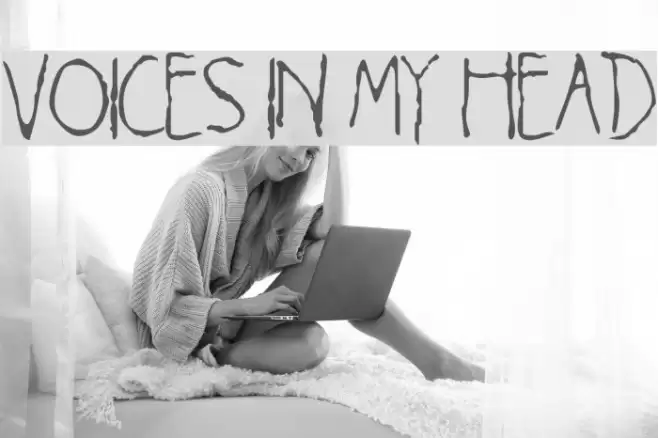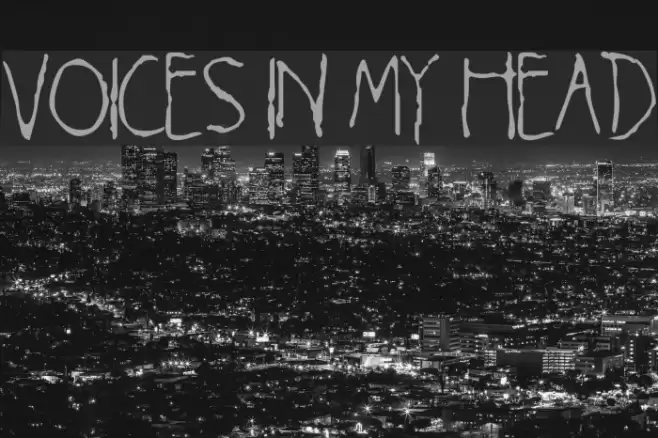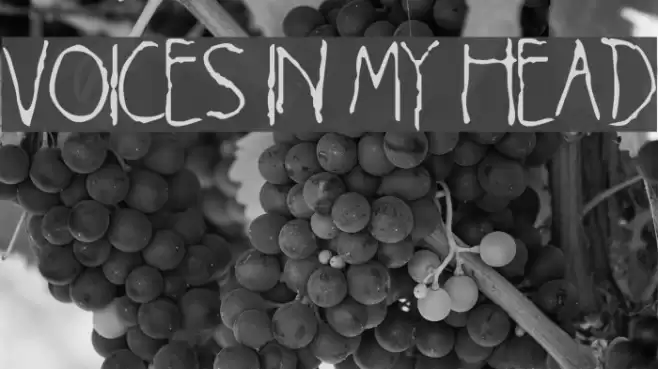
Voices in my Head Font
Voices in my Head Description
This font features a unique, hand-drawn style with an irregular, organic appearance. The letters have a slightly rough texture, giving them a raw and expressive feel. Each character varies in width and height, adding to the font's dynamic and spontaneous look. The strokes are uneven, with some parts thicker and others thinner, creating a sense of movement and energy. This font is reminiscent of handwriting, with a playful and artistic flair that makes it stand out. The overall design is both quirky and engaging, making it suitable for creative projects that require a personal touch.
A hand-drawn, expressive font with irregular, organic strokes from Uncategorized fonts.
- Proposed Projects: Ideal for artistic projects, personal branding, creative posters, and unique invitations.
- Use Case: Logos, Headlines, Artistic projects